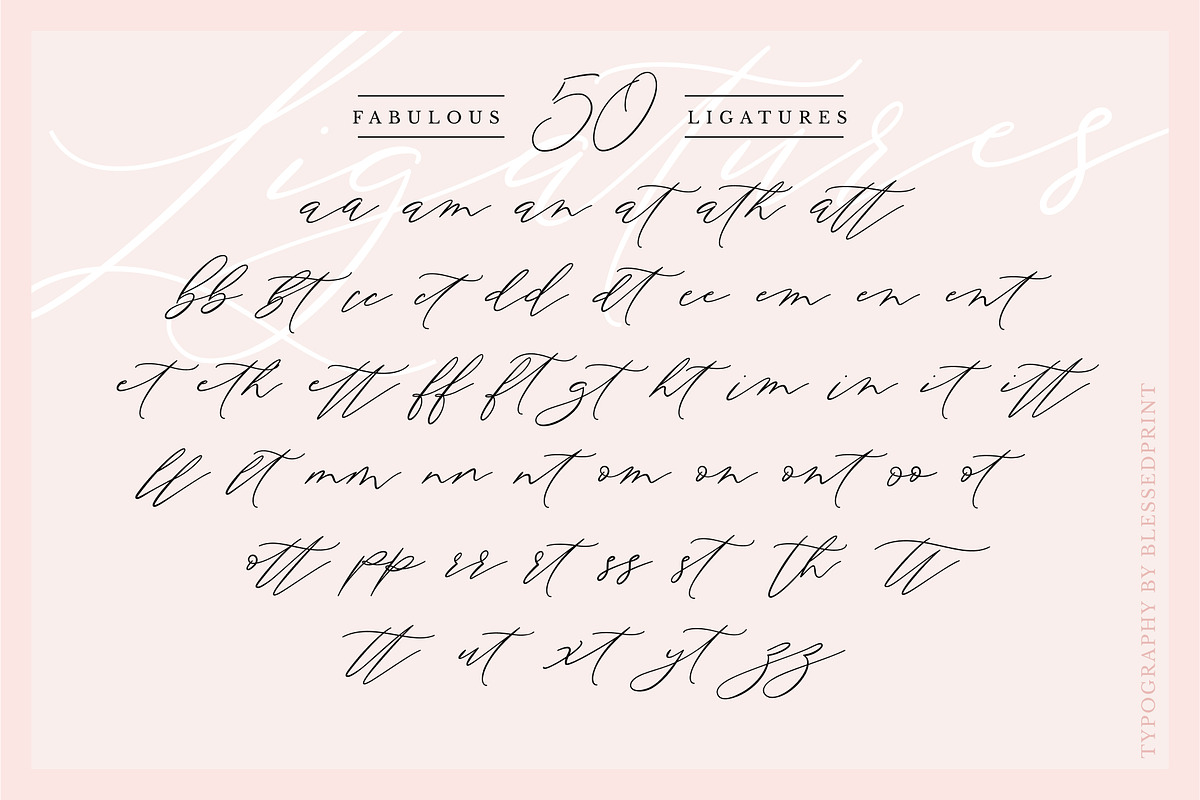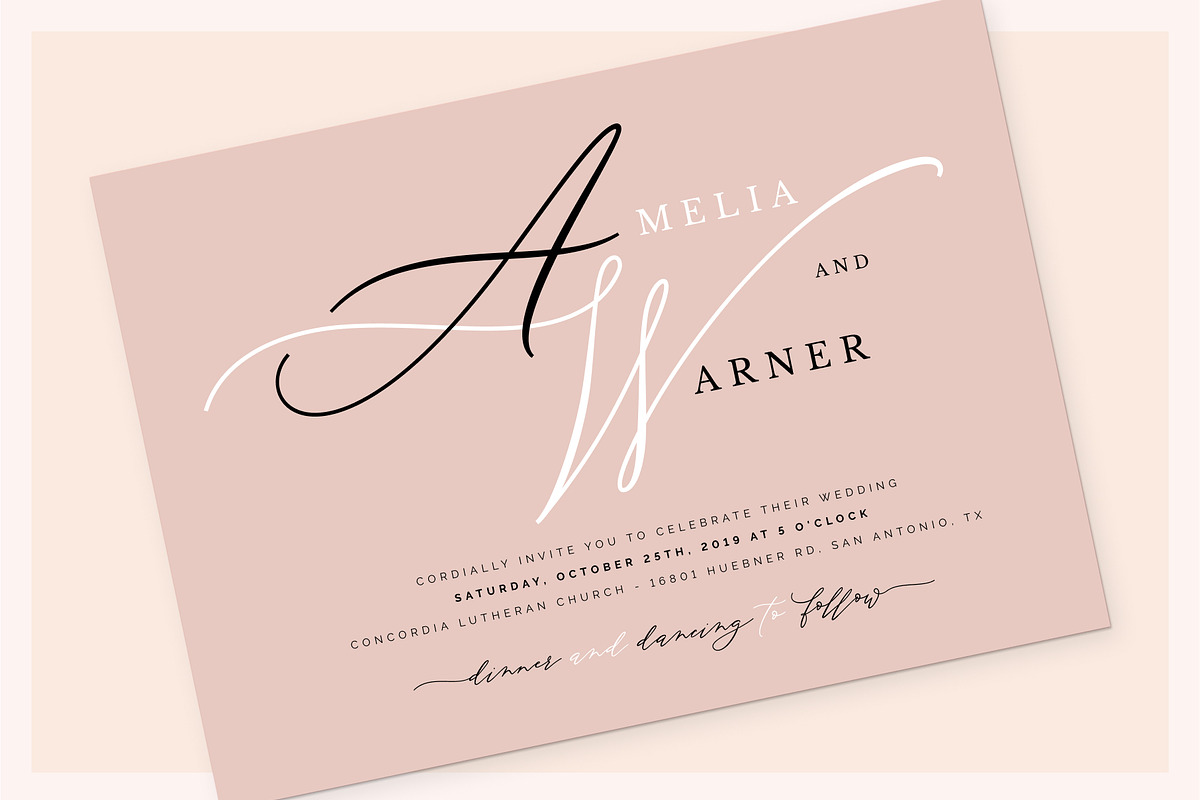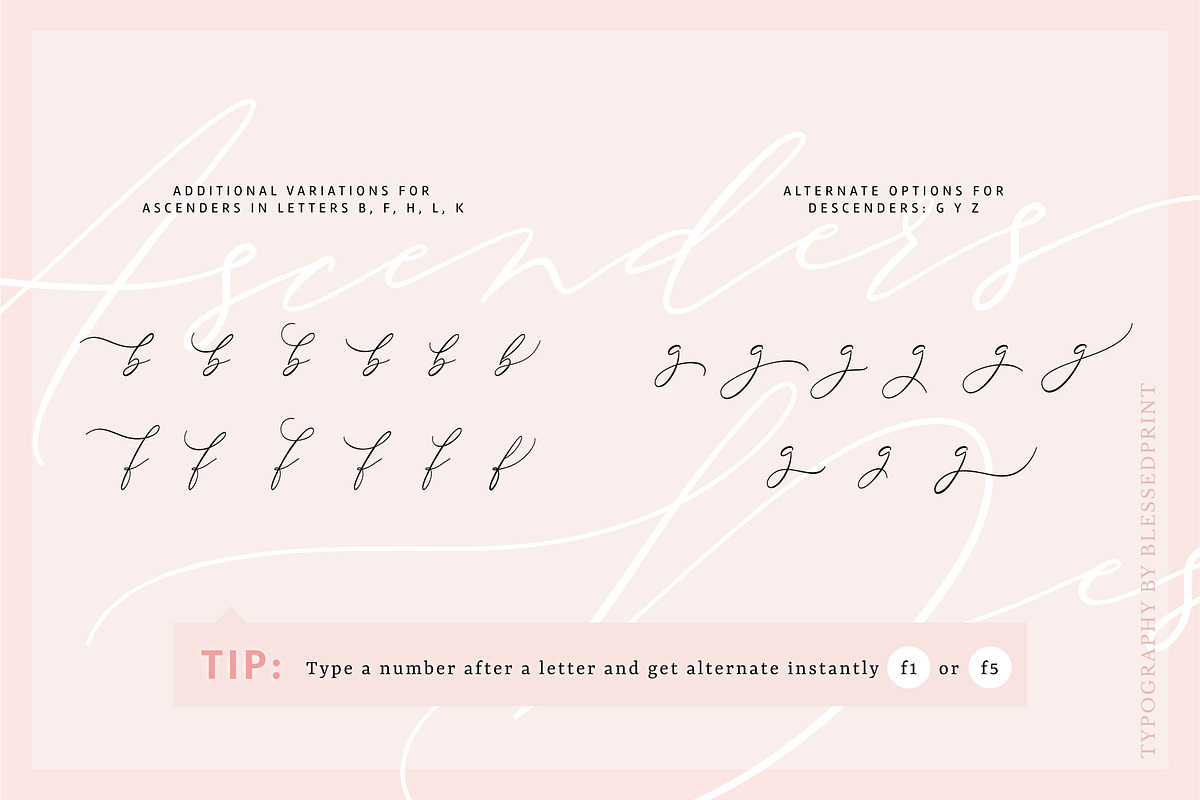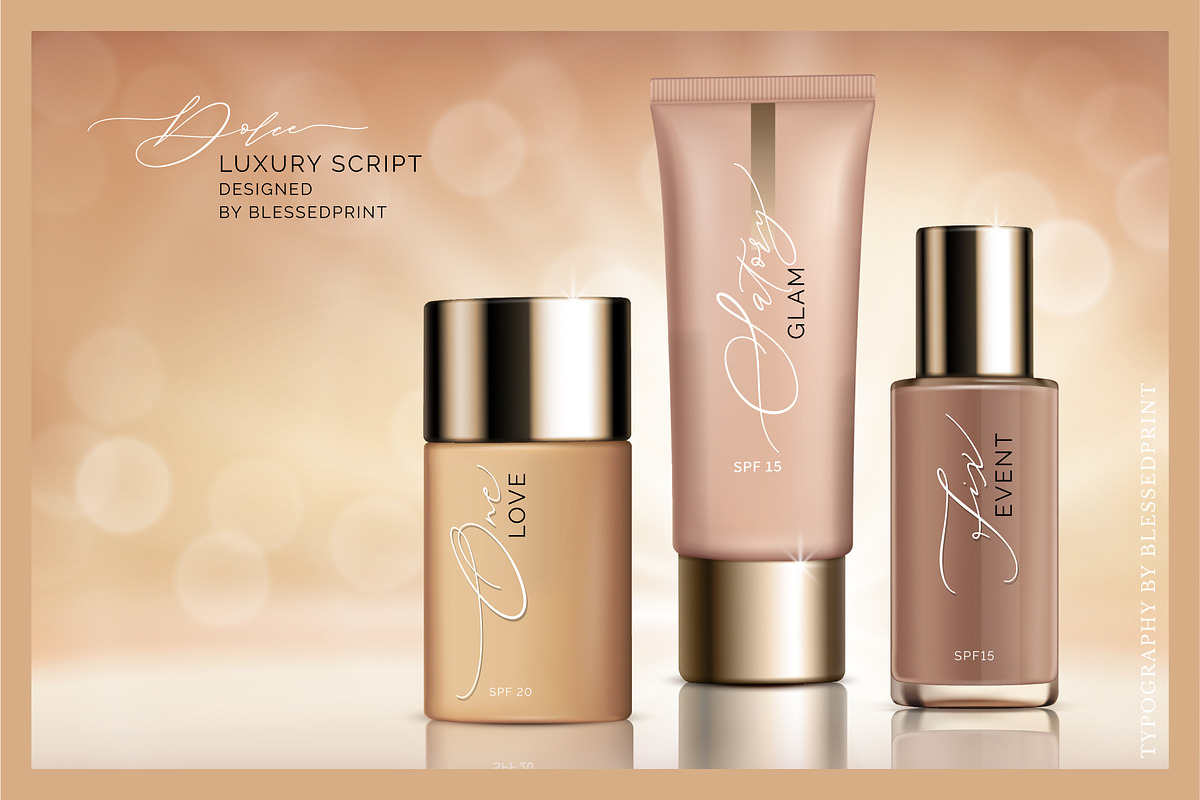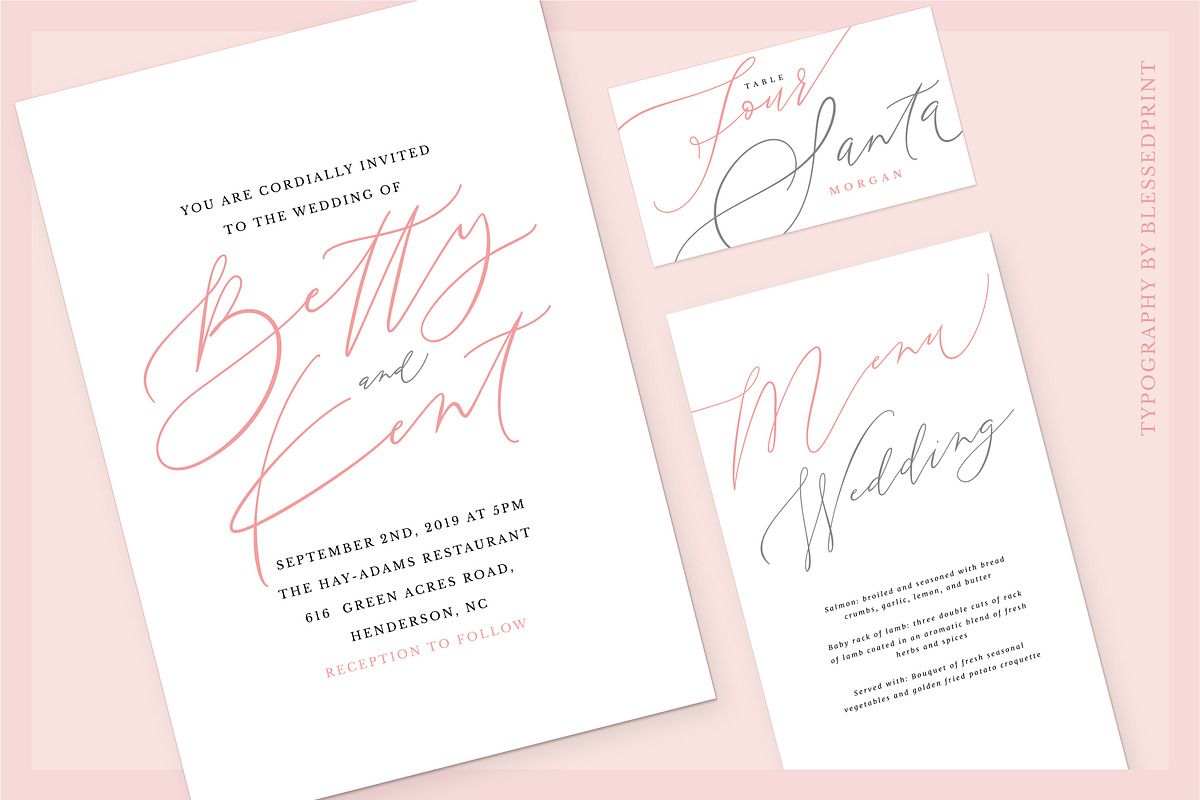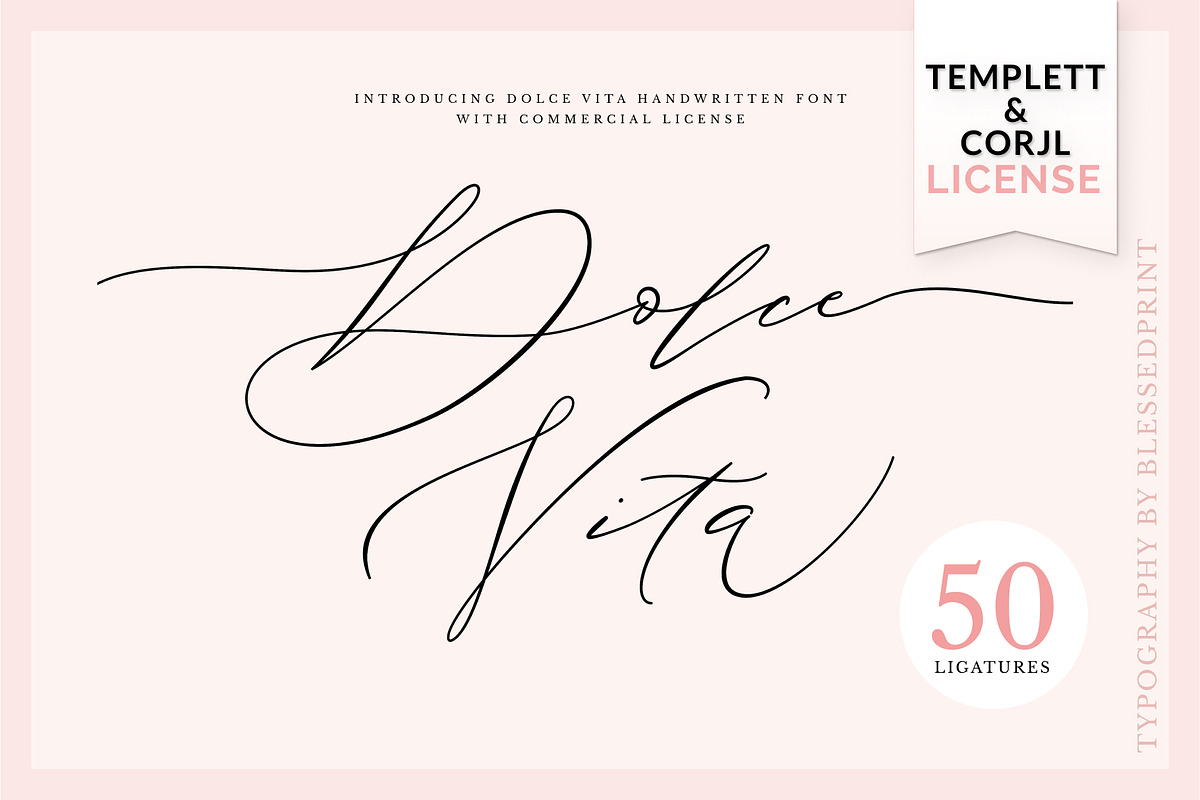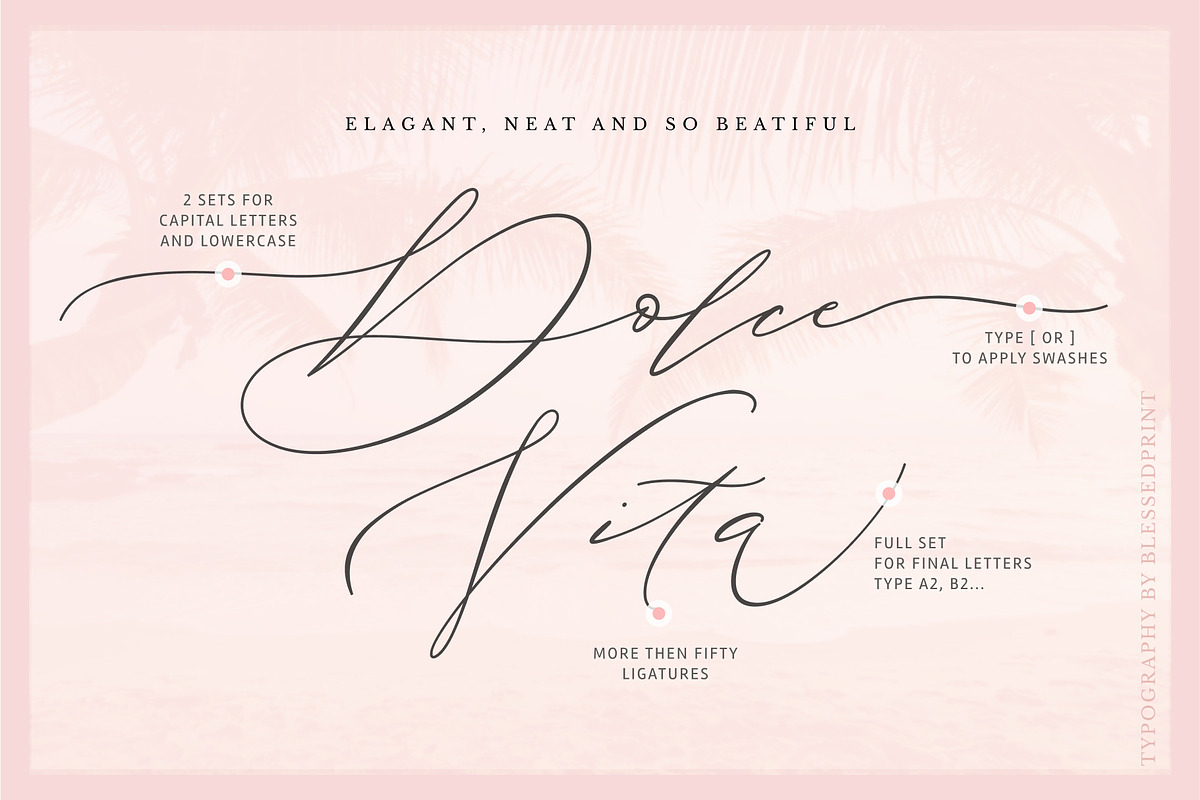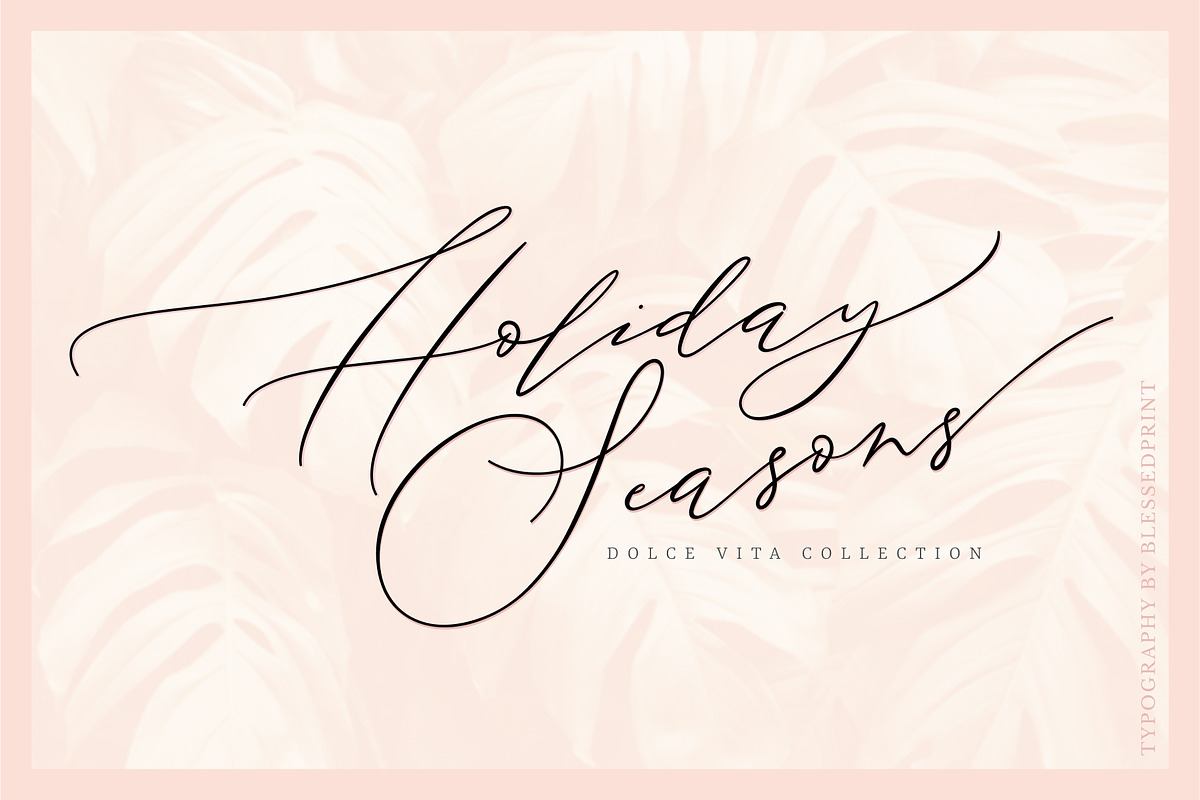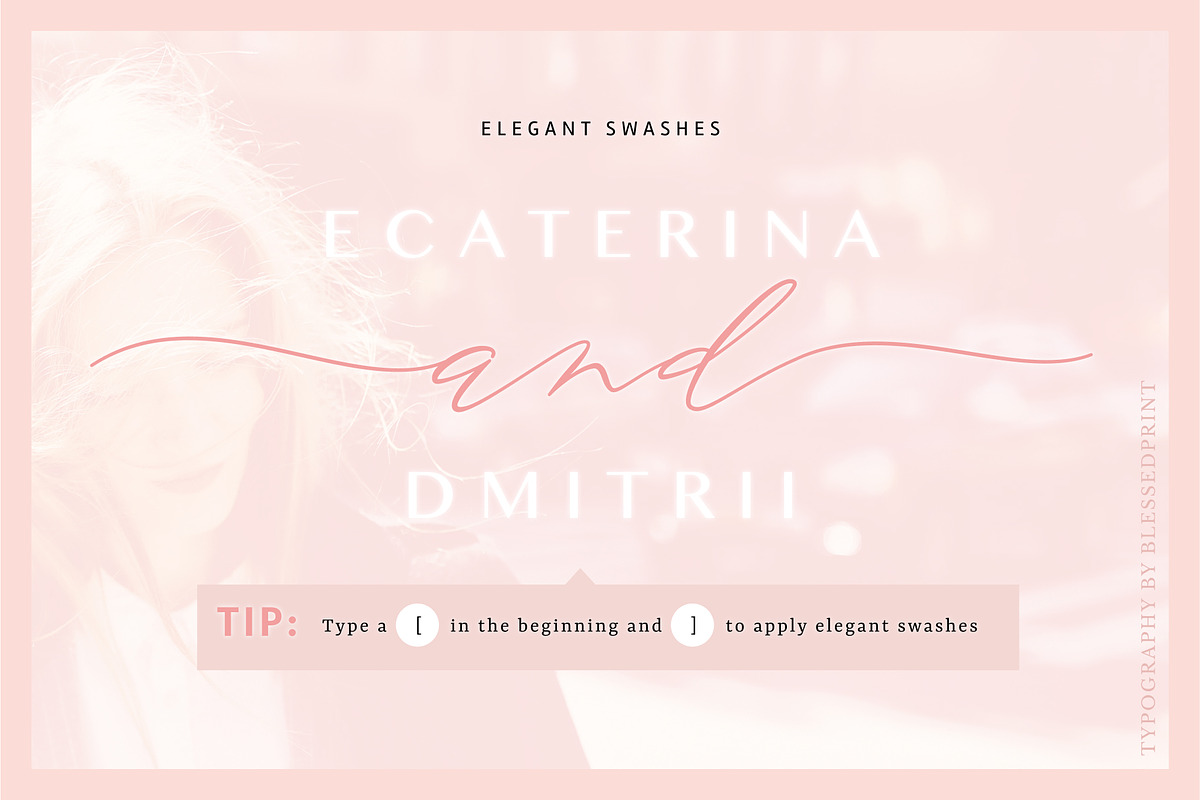
Dolce Vita includes 50 ligatures to add elegant & unique appearance your sign. You are welcome to try how it works by typing here any text.
Apply contextual alternates and look how it becomes even better. Each single glyph has it's own unicode (PUA) so you can copy/paste alternates and don't worry that you miss something.
DolceVita is so easy to work with. Apply swashes instantly by typing [ and ]. Try here right now :) Each letter has alternates. When you type one after letter you are getting alternate: A1, a1, B1, b1, etc... If you type a2, b2, b3... you are getting perfect glyph for ending. Just try to type Vita2. It is very easy and fun. Finally play with ascenders/descenders y3, y4, y5... same for g, z, b, f, l, h, k.